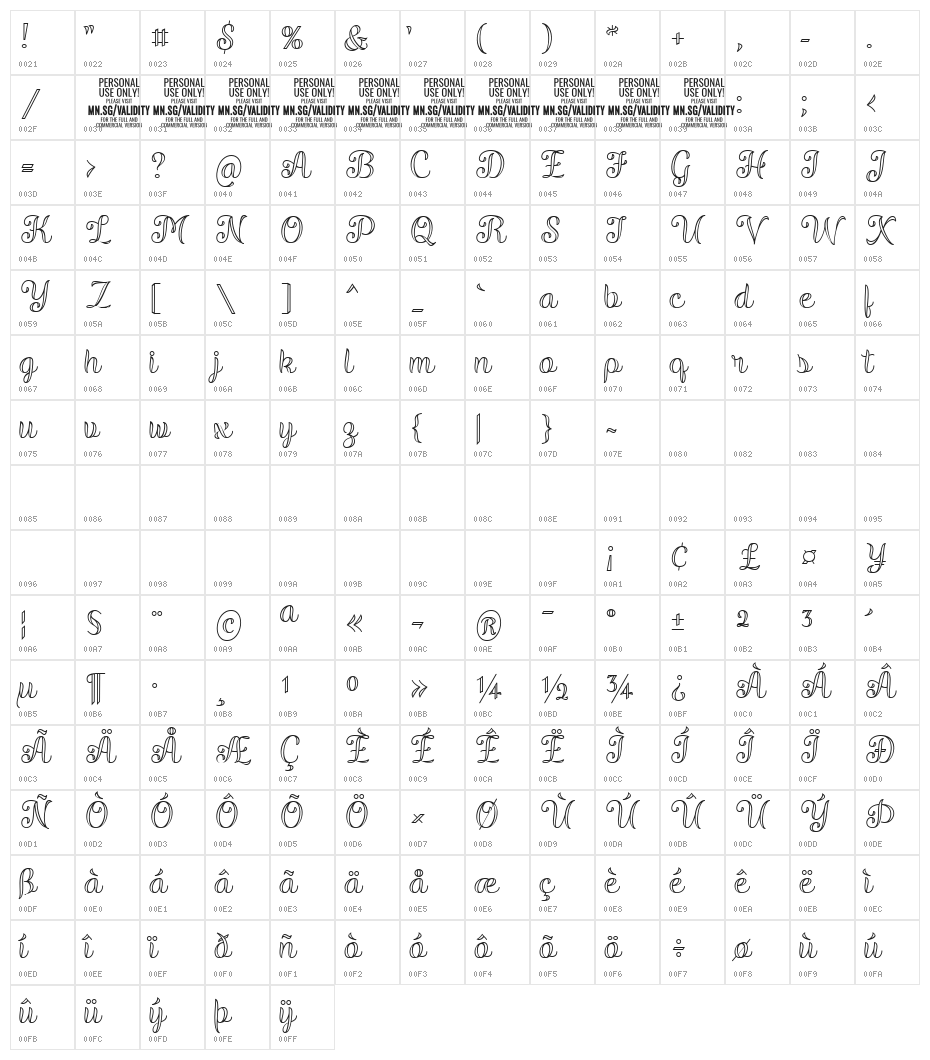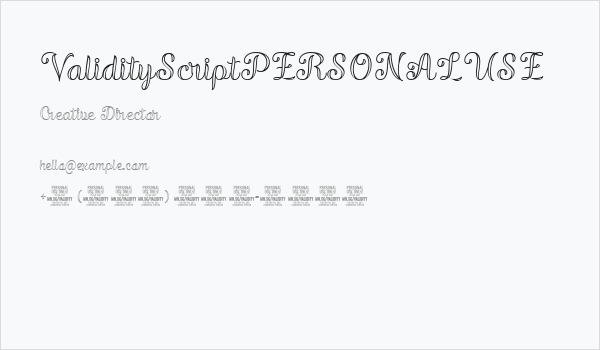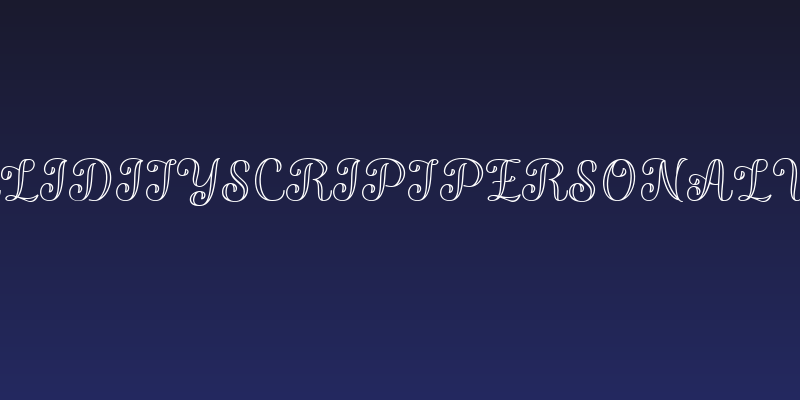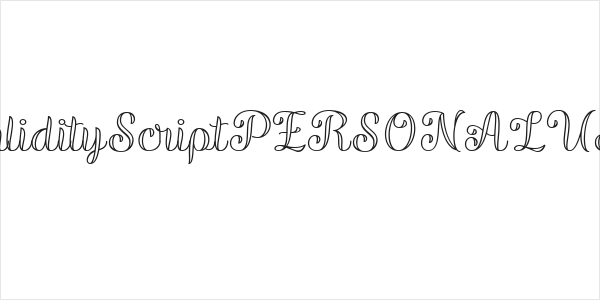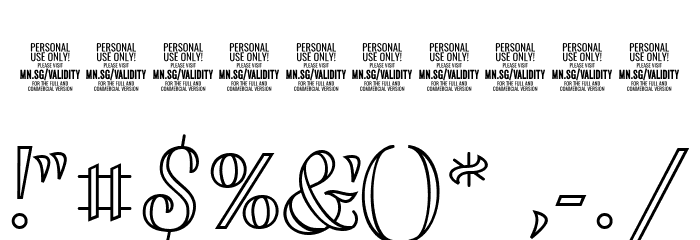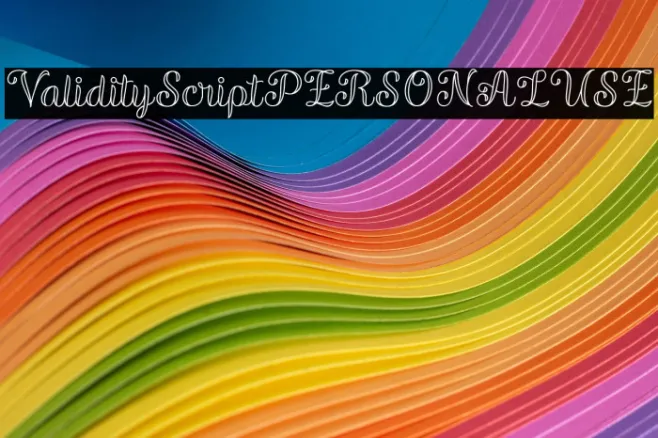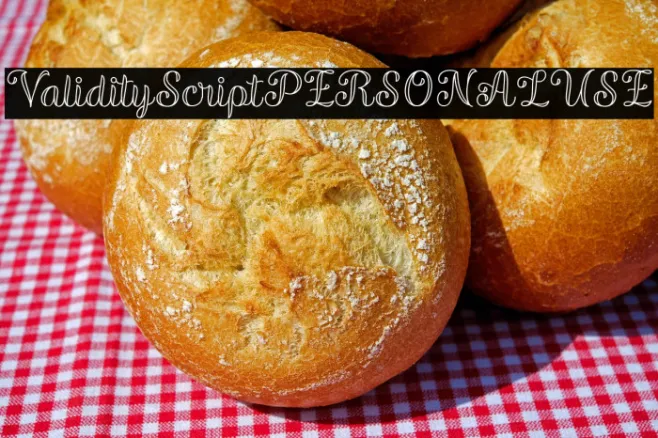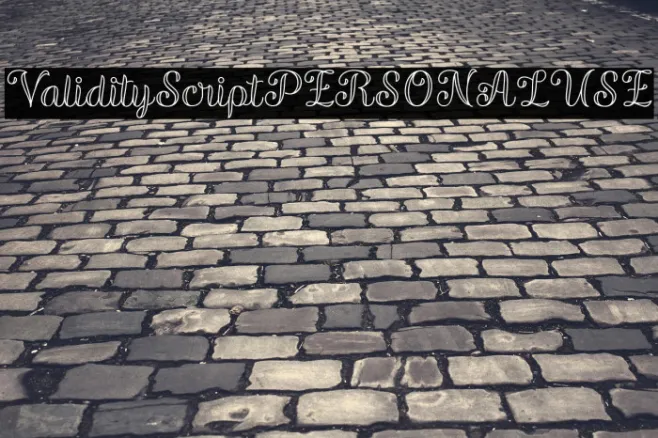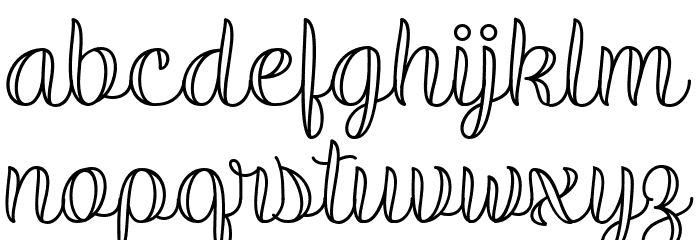
ValidityScriptPERSONALUSE Font
ValidityScriptPERSONALUSE Description
This font features an elegant and flowing script style, characterized by its smooth, continuous strokes and decorative loops. The uppercase letters are ornate, with a playful yet sophisticated flair, making them ideal for attention-grabbing headlines or titles. The lowercase letters maintain a consistent flow, enhancing readability while retaining the decorative essence. The numerals and special characters are designed to complement the overall style, ensuring a cohesive look across all text elements. This font's unique charm makes it suitable for creative projects that require a touch of elegance and personality.